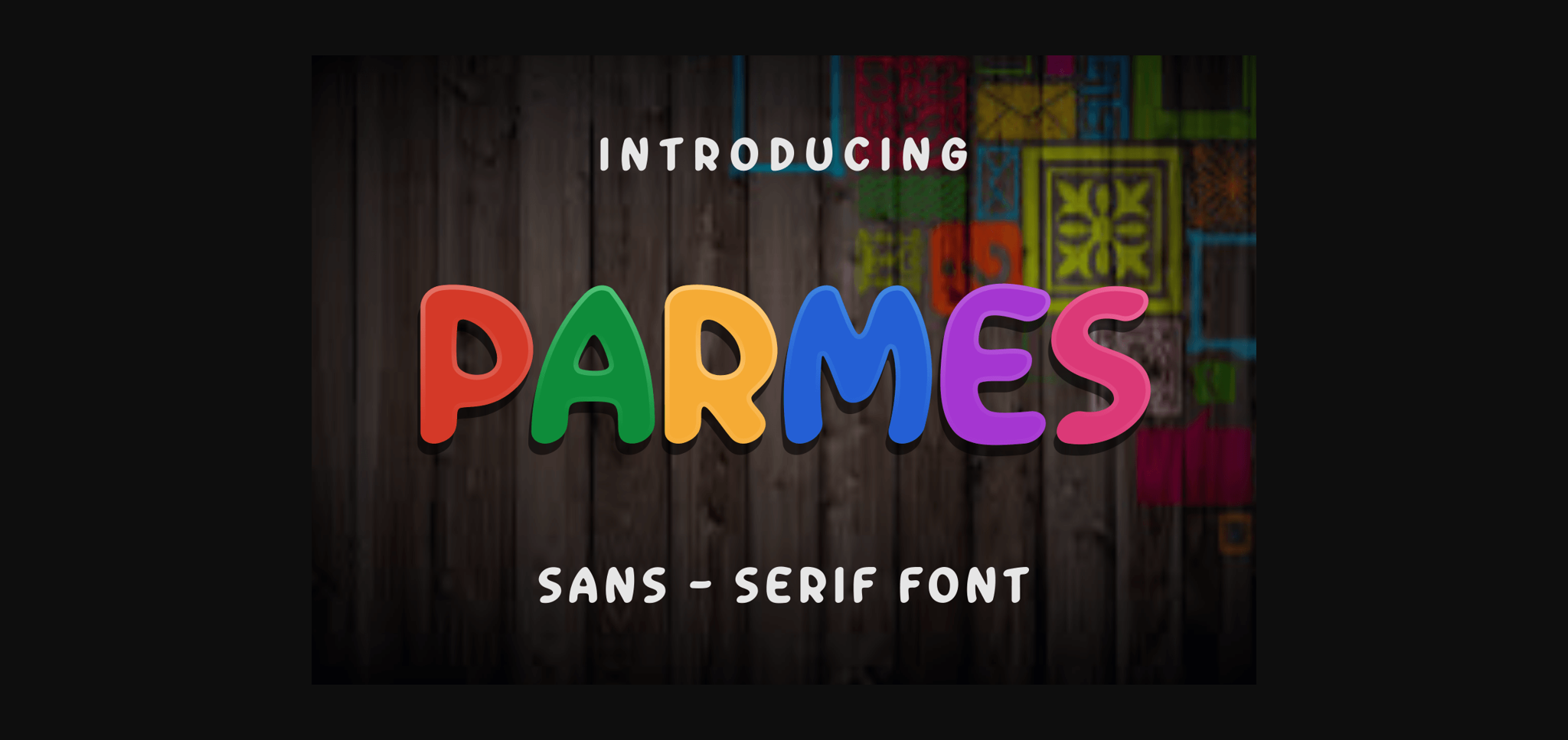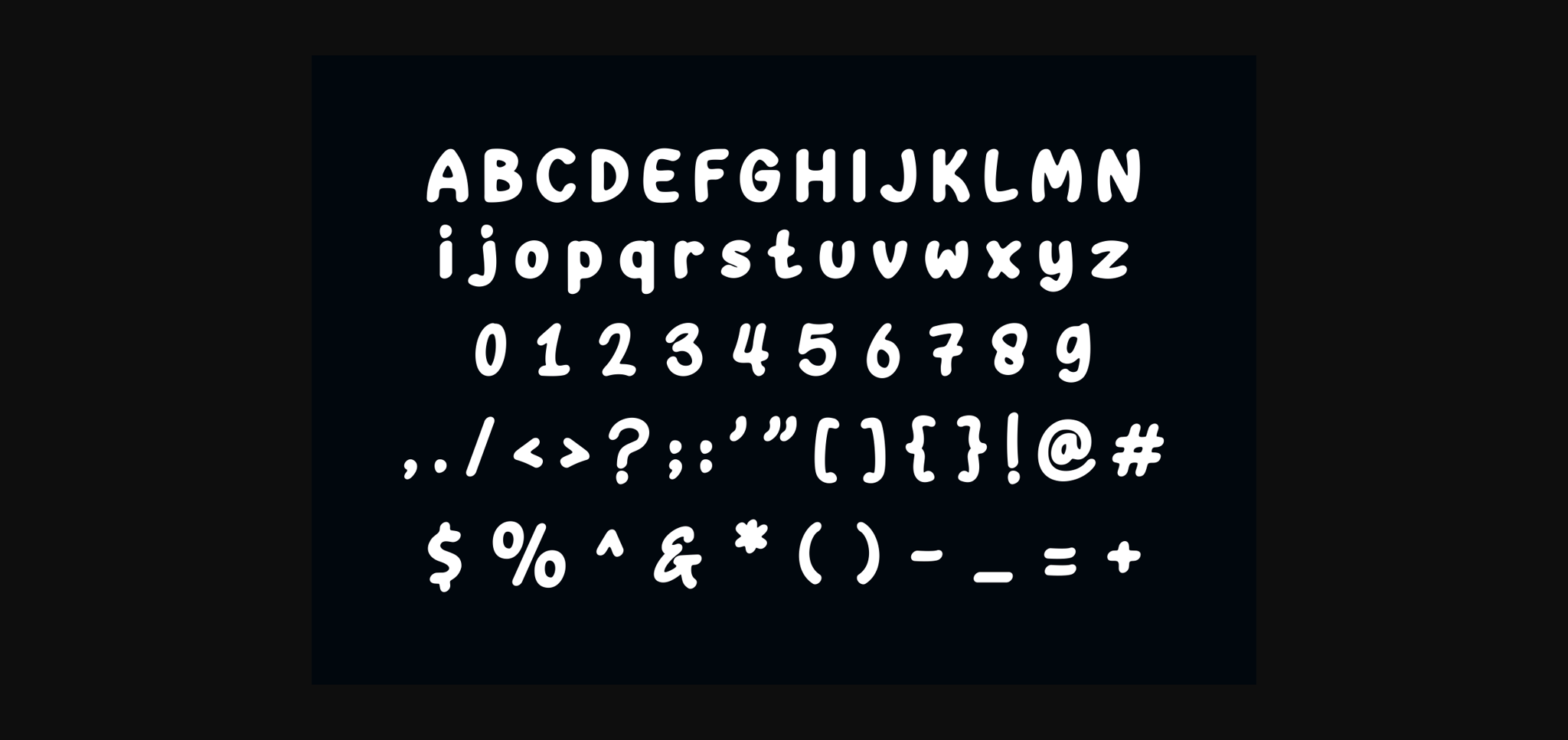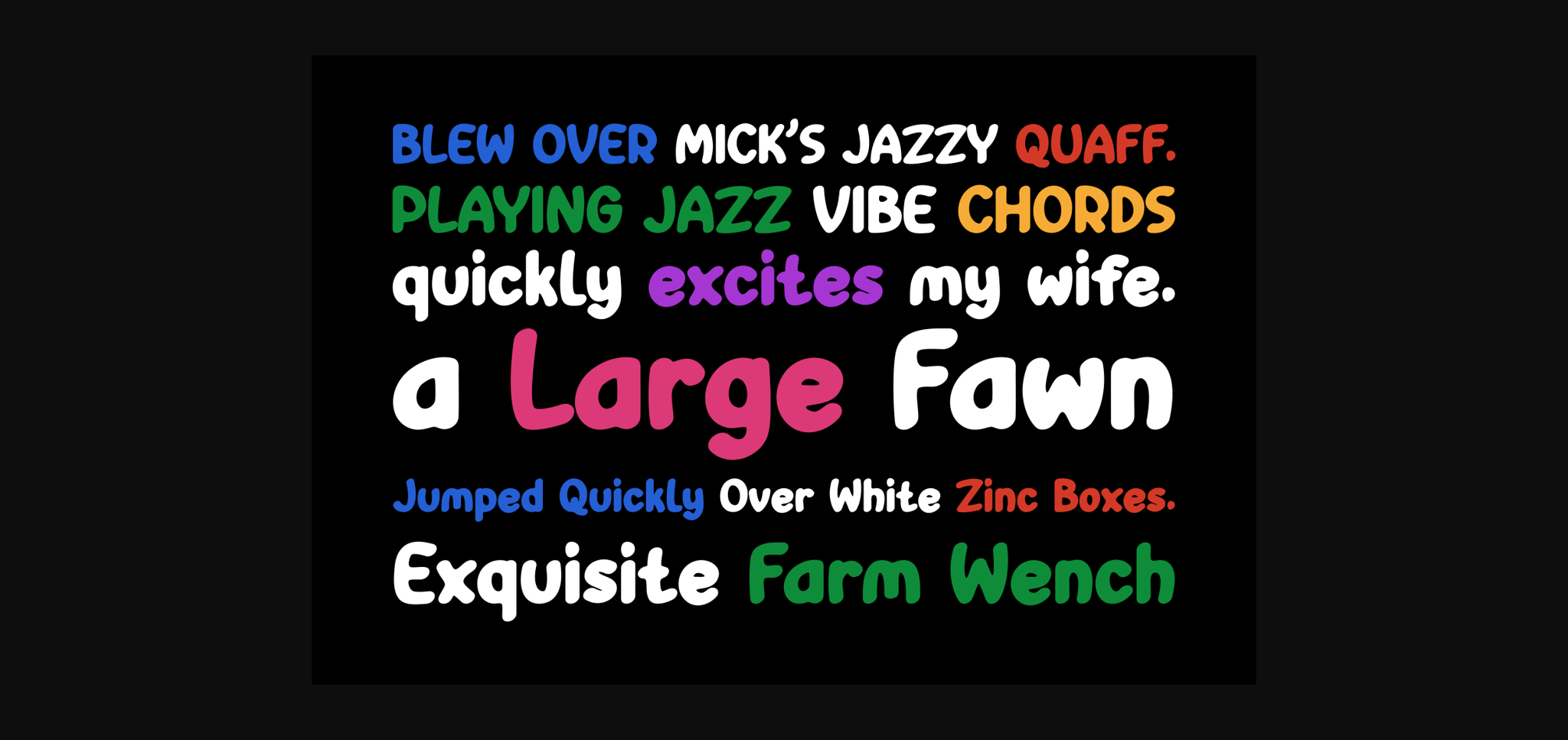
HomeSans Serif FontsParmes Font Sans Serif Fonts Parmes Font FacebookTwitterPinterestWhatsApp 1 of 5 ... Parmes Font Poster 2... Parmes Font Poster 3... Parmes Font Poster 4... Parmes Font Poster 5... About Parmes Font Parmes is a cool and modern sans serif font. No matter the topic, this font will be an incredible asset to your fonts’ library, as it has the potential to elevate any creation. DOWNLOAD NOW 107 0 People also explored Buadaze Font Hallo Betty Christmas Font Tome Sans Variable Gilgan Font Calgary Font Enuy Font Uprising Font Right Beginning Font Christmas Font Lydiani Duo Font Flower Thorns Font TagsParmesParmes Font Previous articleRanjetsu FontNext articleEtanos Font LEAVE A REPLY Cancel reply Comment: Please enter your comment! Name:* Please enter your name here Email:* You have entered an incorrect email address! Please enter your email address here Website: Save my name, email, and website in this browser for the next time I comment. Unlock Endless Creativity with the FREE September Clipart Huge Bundle (Valued at $700!) Personal Use Free Euphorigenic Personal Use Free Read more Pumpkin Type Halloween Font Personal Use Free Read more Fillguy Font Personal Use Free Read more Williana Personal Use Free Read more BLOG Using Fonts in Digital Marketing: Tips to Strengthen Your Brand Identity In the realm of digital marketing, every visual element plays a crucial role in shaping a brand's identity, and fonts are no exception. The... Free Fonts Risk: Why Free Fonts Can Be Dangerous for Designers Top 7 Google Fonts Alternatives for Faster and Privacy-Friendly Web Design (2025) The 10 Best Handwriting Fonts to Add Personality to Your Designs